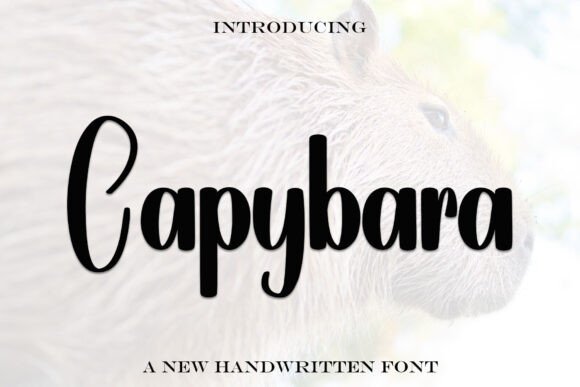
Discover the Whimsy of Handwritten Design with Capybara Font
There’s something magical about the moment when a design idea clicks into place. You’re brainstorming, sketching, and experimenting until suddenly, it all comes together in a beautiful, cohesive vision. For designers, this moment is a thrill unlike any other – and with the right tools, it can be achieved again and again.
Enter the Capybara Font, a sweet and cursive handwritten font designed to add a touch of whimsy and romance to your projects. Whether you’re creating branding materials, wedding invitations, or fashion lookbooks, this font is the perfect companion to bring your designs to life. Its gentle curves and playful charm make it a valuable addition to any designer’s toolkit, allowing you to create designs that are both elegant and casual.
Capybara Font Key Features
- Unique Characteristics: Capybara Font features a unique blend of modern and vintage elements, with a focus on clean lines, rounded shapes, and a subtle texture, making it perfect for designs that require a touch of whimsy and sophistication.
- Character Set: The font includes a comprehensive character set, covering Latin, Cyrillic, and Greek alphabets, as well as a range of punctuation and symbol marks.
Capybara Font Review
Overall, I’m impressed with the Capybara Font. It’s a unique and playful script font that’s perfect for adding a touch of whimsy to your designs. ✨ The font’s irregularities and organic feel make it stand out from more traditional script fonts.
Here are some of the things that work well with the Capybara Font:
- ✨ The font’s flexibility – it can be used for a wide range of design projects, from logos and branding to packaging and editorial content.
- ✨ The font’s high level of customization – it comes with a range of OpenType features and stylistic sets that allow you to fine-tune the font to suit your needs.
- ⚠️ The font’s irregularities can make it difficult to read at small sizes or in certain contexts.
- ⚠️ The font’s customization options can be overwhelming for designers who are new to script fonts.
Overall, I think the Capybara Font is a great choice for designers who want to add some personality to their projects. While it may have some limitations, its unique look and high level of customization make it a versatile and useful tool to have in your design arsenal.
The Capybara font is perfect for:
- Children’s books and educational materials.
- Whimsical and playful designs.
- Creating a fun and approachable tone.
Alternatives to Capybara Font
Open Sans is a modern sans-serif font suitable for digital products. It’s highly legible and readable, making it ideal for body text and UI elements. Open Sans is more versatile and has a wider range of applications compared to Capybara Font, which is more playful and suited for children’s content.
Lato is a clean and elegant sans-serif font perfect for corporate and modern designs. It’s highly customizable and has a wide range of weights, making it suitable for titles, headings, and body text. Compared to Capybara Font, Lato is more professional and has a more sophisticated look.
Montserrat is a geometric sans-serif font inspired by the urban landscape of Buenos Aires. It’s highly versatile and suitable for modern and minimalist designs. Compared to Capybara Font, Montserrat is more edgy and has a stronger geometric feel.